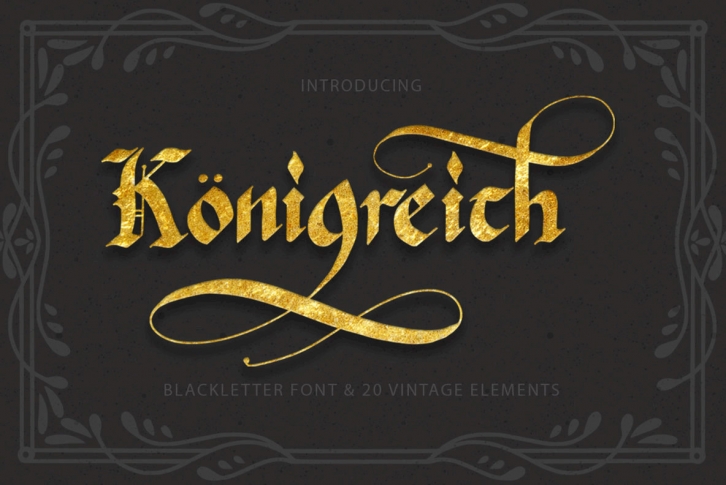
Konigreich is the perfect tool to create amazing designs, like vintage cards, modern t-shirts, retro posters, unusual mugs, luxury branding materials, and any other projects you are working on. Konigreich is a beautiful blackletter font with lots of OTF.
4 variants of alternate letters for the lowercase, make this font an unique tool for creating amazing handdrawn texts, richly decorated with swashes.
It’s very easy to get alternative glyphs: just type the number after any letter (1…4 for lowercase). So, you can forget about the Glyphs panel and have fun and great results just type numbers after letters.
You can still use the Glyphs panel. You’ll see there 104 stylistic alternate glyphs for lowercase and 21 ligatures. It has multilingual support, which include Western European, Central European and South Eastern European languages.